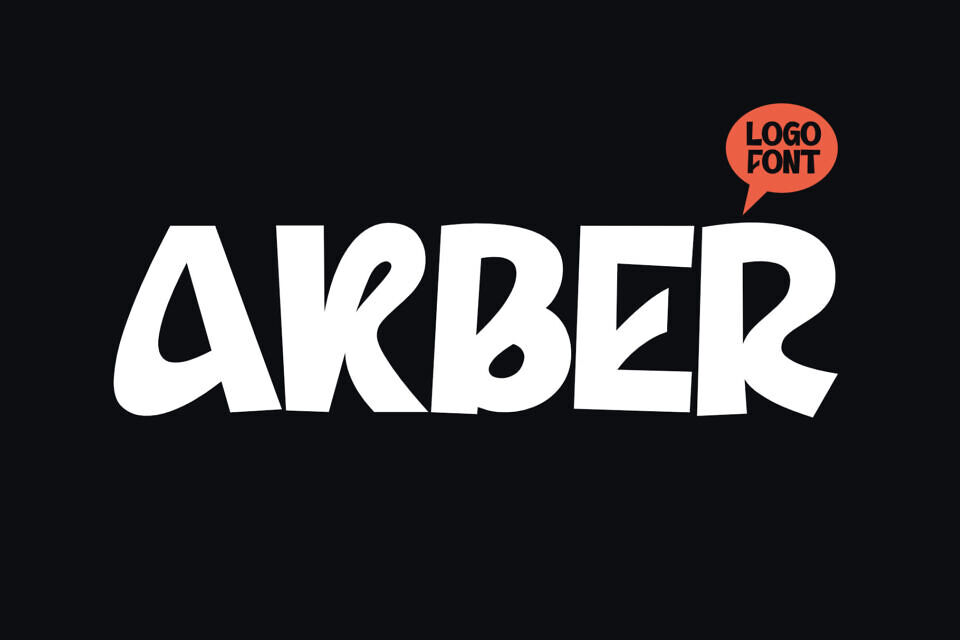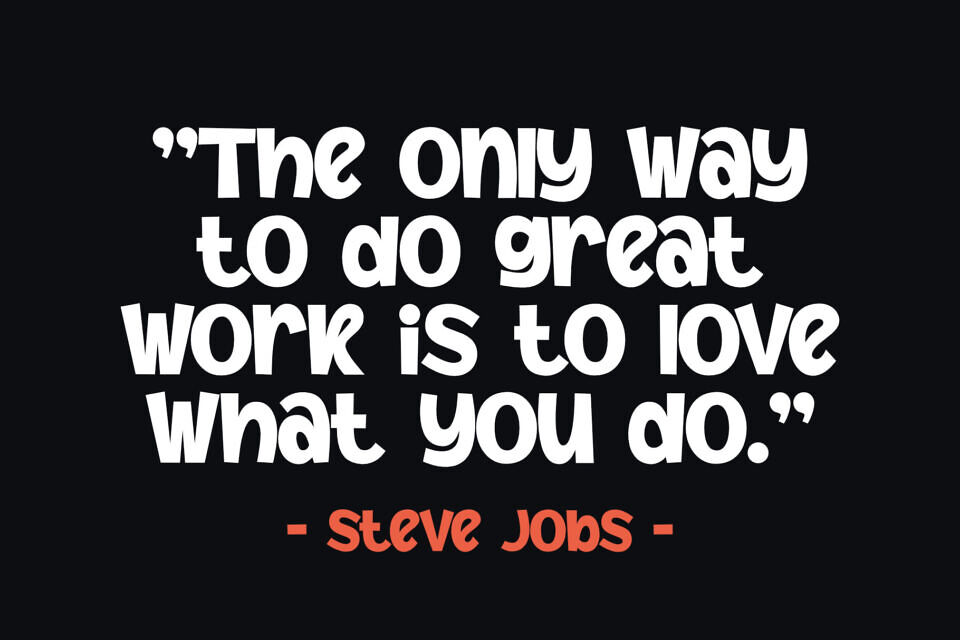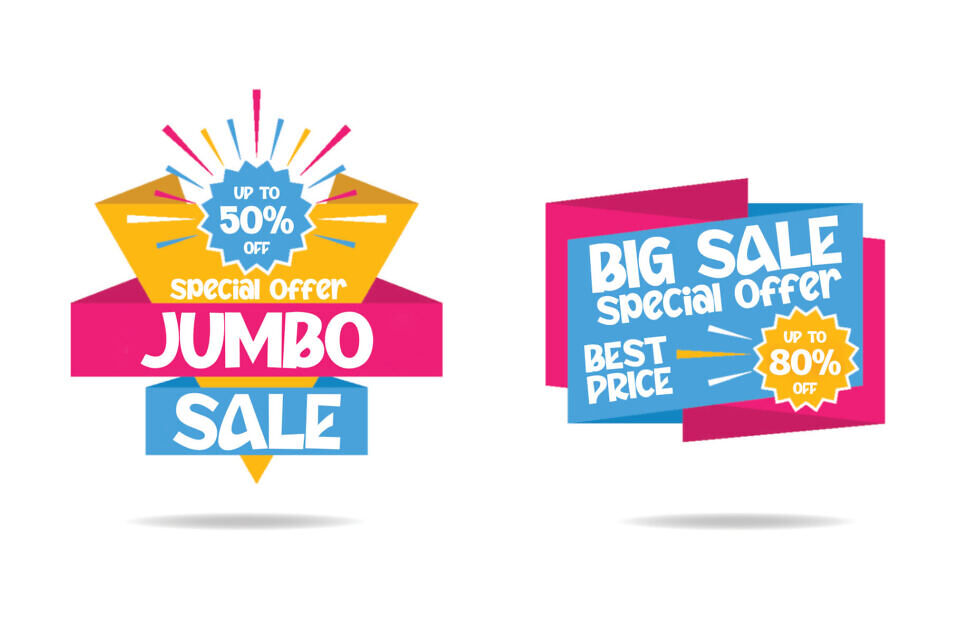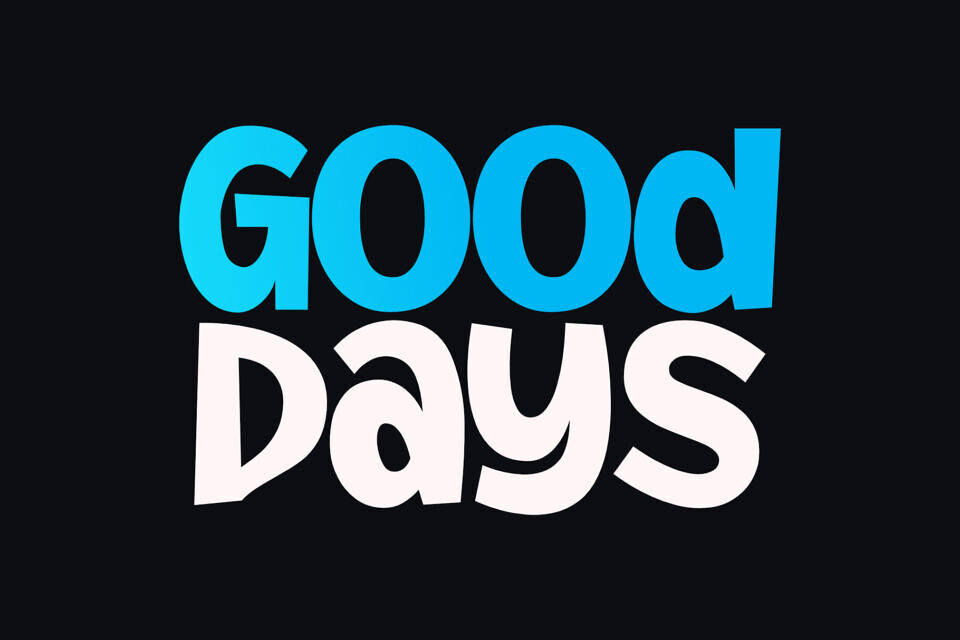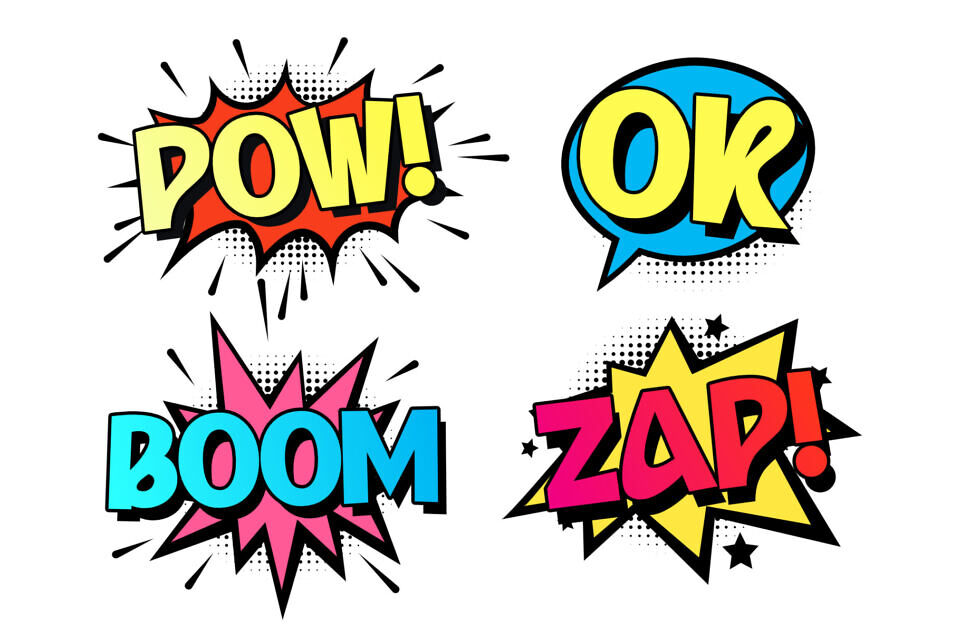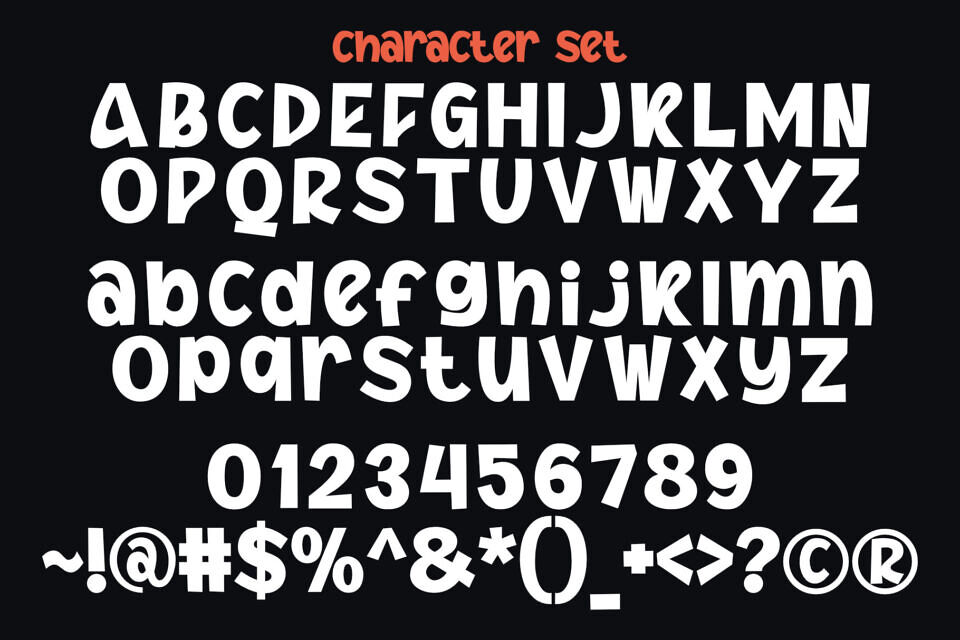
Akber Font
Akber is designed to make a bold and unforgettable impact in any design project. Its strong, modern style creates a dynamic and visually striking presence, ideal for contemporary design demands.